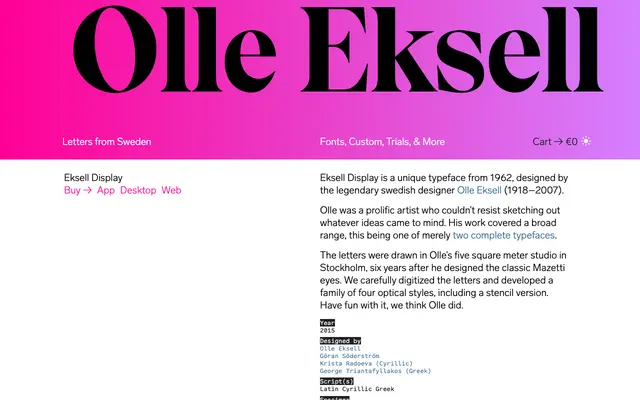
Eksell Display
Letters from Sweden · Olle Eksell, Göran Söderström, Krista Radoeva, George Triantafyllakos · 2015
Eksell Display specimen from Letters from Sweden
A digitisation of Olle Eksell's 1962 hand-drawn lettering, released as a four-style display family covering Latin, Cyrillic and Greek.
Originally sketched in 1962 in a five-square-metre Stockholm studio by the Swedish graphic designer Olle Eksell, the typeface was carefully digitised by Letters from Sweden and released in 2015. The family comprises four optical styles including a stencil cut, and the character set spans Latin Extended, Cyrillic and Greek. Its irregular, graphic-designer-drawn quality is a feature rather than a flaw, giving it a mid-century warmth that distinguishes it from more polished revivals.
A quirky, hand-drawn display typeface with geometric tendencies but irregular, graphic-designer sensibility. Classified as display due to its optical size variants and distinctly decorative character unsuited to text use.